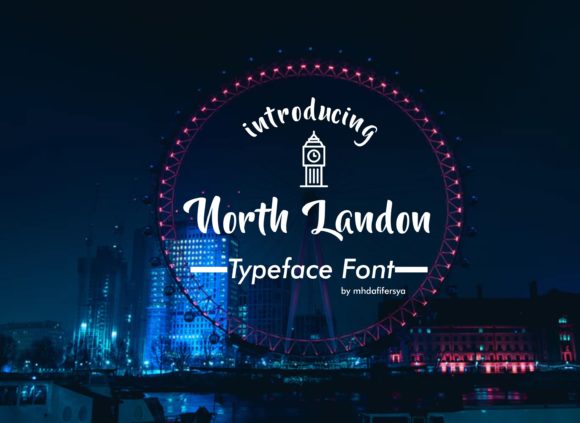
Embark on an extraordinary typographic adventure with North Landon Script Font, a creation of Lettercorner Studio that will ignite your creative spirit. This striking script font possesses an unmatched charm, capable of transforming your designs into captivating works of art.
Unleash your imagination and explore the limitless possibilities that await you with North Landon. Its unique and distinctive style captivates the eye, leaving an enduring impression on all who encounter it. Whether you're crafting logos, branding materials, wedding invitations, or social media graphics, this font is your gateway to creating designs that resonate with elegance and sophistication.
Immerse yourself in the allure of North Landon's meticulously crafted glyphs, each meticulously designed to evoke a sense of timeless beauty. Its sweeping curves and graceful lines dance across the page, evoking a symphony of visual delight. Experience the joy of crafting designs that exude personality and charm, leaving a lasting impact on your audience.
With North Landon as your creative companion, your designs will transcend mediocrity, captivating hearts and minds alike. Its versatility knows no bounds, seamlessly adapting to a multitude of projects and styles. From whimsical illustrations to heartfelt love letters, North Landon effortlessly enhances your creative expression, adding a touch of magic to every word you write.
Step into a world where creativity flourishes, where your designs blossom into masterpieces. North Landon Script Font is your key to unlocking this realm of boundless imagination. Seize this opportunity to elevate your design game and create works of art that leave an indelible mark.